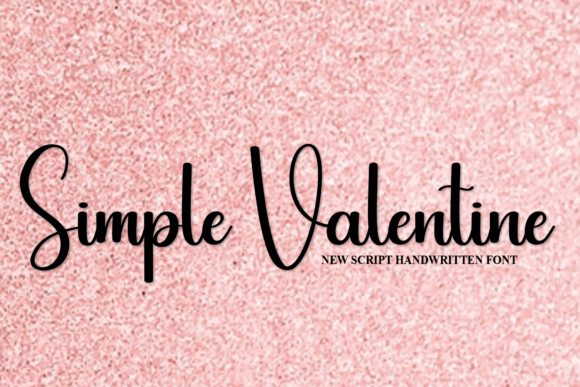
Introducing Simple Valentine Font: The Exquisite Handwritten Masterpiece That Will Ignite Your Creativity!
In the realm of digital artistry, fonts are the unsung heroes that breathe life into your creations. They have the power to transform ordinary words into captivating expressions, adding a touch of elegance, playfulness, or sophistication to your designs. Among this extraordinary collection of fonts, Simple Valentine Font stands out as a radiant gem, a true testament to the artistry of its creator Roronoa zoro.S.P.D.
Simple Valentine belongs to the esteemed family of script fonts, renowned for their graceful strokes and organic flow. Each letter in this font is a work of art, meticulously crafted to showcase the beauty of handwritten calligraphy. Its distinct and well-balanced structure creates a visual symphony that dances across your screen, captivating the eyes and leaving a lasting impression.
Step into the enchanting world of Simple Valentine Font and discover a realm of endless possibilities. Whether you're crafting heartfelt love letters, designing elegant invitations, or creating captivating social media posts, this font will effortlessly elevate your words. Its versatility knows no bounds, adapting seamlessly to a myriad of design styles and themes.
With Simple Valentine Font as your creative companion, you'll find yourself immersed in a world of boundless inspiration. Its delicate strokes will add a touch of romance to your love letters, while its elegant curves will lend an air of sophistication to your professional documents. Unleash your inner artist and explore the limitless possibilities that await.